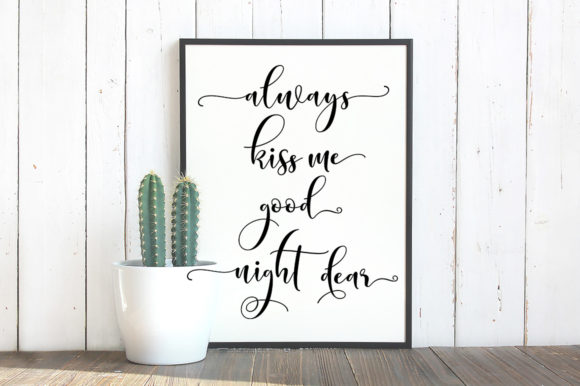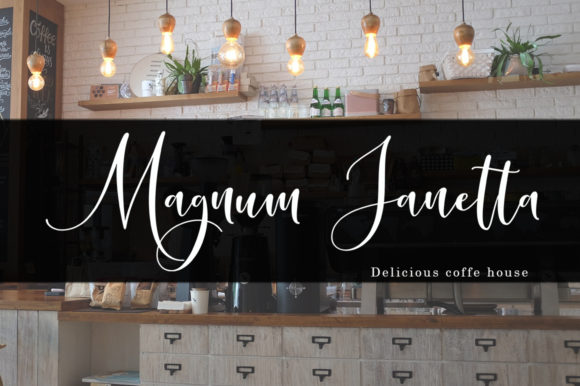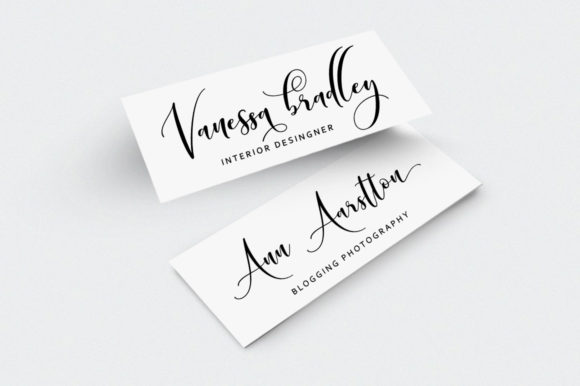
Introduction to Mandevilla Script Font
Have you ever sat down with a blank canvas, a cup of coffee, and a spark of creativity, only to be left wondering where to start? This is where the perfect design resource can make all the difference. For those looking to add a touch of whimsy and romance to their next creative project, we’re excited to introduce the enchanting Mandevilla Script Font.
With its sweet and charming aesthetic, Mandevilla Script Font is the perfect addition to any design. Whether you’re working on a wedding invitation, a birthday card, or a custom sign, this font is sure to bring a high-quality, authentic touch to your work. Plus, its transparent background makes it easy to overlay on any image, giving you endless possibilities for creative expression.
Key Features of Mandevilla Script Font
- High-quality, elegant script font perfect for creative projects, such as wedding invitations, quotes, and typography-based designs.
- Includes a wide range of characters, including uppercase and lowercase letters, numbers, and punctuation marks.
- Designed to be used at a large size, with optimal results at 24pt or larger, for a clear and legible display.
Honest Review: Mandevilla Script Font
I recently stumbled upon the Mandevilla Script Font, and I’m excited to share my honest review with you. As a designer, I’m always on the lookout for high-quality design resources that can elevate my creative projects.
The Mandevilla Script Font is a beautiful, elegant script font that’s perfect for adding a touch of sophistication to your designs. One of the standout features of this font is its transparent background, which makes it easy to use in conjunction with other design elements.
Here are some of the things that work well with the Mandevilla Script Font:
- High-quality design: The font is well-designed and looks great in a variety of contexts.
- Flexible: The font can be used for a wide range of creative projects, from branding and marketing materials to wedding invitations and more.
While the Mandevilla Script Font is a great resource, there are a few limitations to be aware of:
- Not suitable for all designs: The font’s elegant, sophisticated look may not be the best fit for every project.
- May require customization: Depending on the specific design requirements, you may need to customize the font to get the look you want.
Overall, I’m impressed with the Mandevilla Script Font and would definitely recommend it to other designers looking for a high-quality script font for their creative projects.
Tips for Getting the Most Out of Mandevilla Script Font
To get the most out of Mandevilla Script Font, use it on a transparent background to create a beautiful and elegant design. You can also use it in combination with other design elements to create a unique and eye-catching look. Additionally, experiment with different font sizes and styles to add depth and interest to your design.